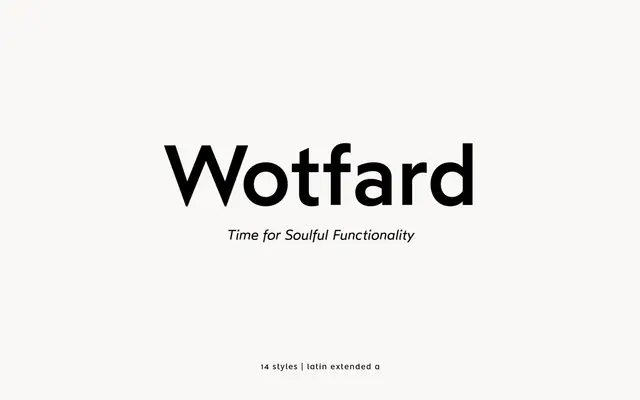
Wotfard
A rounded geometric sans from atipo across seven weights with matching italics, a softer counterpart to Strawford.
Wotfard is a geometric sans from atipo foundry that softens the geometric model with slightly rounded terminals and a friendly lower-case. It runs across seven weights from Thin to Bold with matching italics, fourteen styles in total, and sits as a softer alternative to harder geometrics like Strawford in the same catalogue. A good pick for product brands, app interfaces, family and education contexts, and editorial work that wants a contemporary sans with a warmer character.
A geometric sans across seven weights from Thin to Bold with matching italics, lighter and slightly more rounded than Strawford.